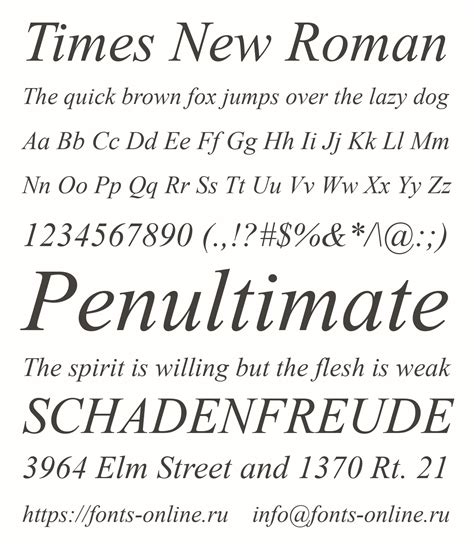
New Times Roman On Google Fonts: A Comprehensive Guide
New Times Roman on Google Fonts: A Comprehensive Guide
Hey everyone! Ever wondered if you can use New Times Roman font on your websites or projects, especially when you’re using Google Fonts ? Well, you’re in for a little bit of a surprise! Let’s dive deep into this. We’ll explore the availability, the closest alternatives, and how you can still achieve that classic, elegant look in your designs. It’s about finding the right font for the job, understanding the options, and making your text look amazing. So, let’s get started, shall we?
Is New Times Roman Directly Available on Google Fonts?
Alright, let’s address the elephant in the room. Directly, no. New Times Roman is not available on Google Fonts . This is because New Times Roman is a proprietary font, traditionally licensed and not open-source, which is the nature of Google Fonts. Google Fonts primarily offers a vast library of open-source fonts that are free to use for personal and commercial projects. This policy ensures that the fonts available are legally compliant for widespread use and distribution without incurring licensing fees. It’s important to respect the licensing of fonts because each font has its own unique license, and understanding the terms of the license is crucial to avoid any legal issues. Now, Google Fonts is an awesome resource, but it’s not a complete collection of every font ever made. This is just a fact, and it doesn’t diminish the value of Google Fonts; it just means we need to find other ways to get that classic look.
The absence of New Times Roman on Google Fonts stems from the different licensing models involved. Proprietary fonts like New Times Roman are often subject to licensing agreements that restrict their distribution, while Google Fonts is designed for open-source and freely available fonts. Open-source fonts allow for greater flexibility in terms of usage, modification, and distribution, which aligns with the core principles of the Google Fonts project. However, the absence of New Times Roman doesn’t mean you can’t get a similar aesthetic. We’ll explore some fantastic alternatives that can help you achieve the same classic feel. It’s a matter of finding fonts that share the same characteristics and appeal. Remember, the goal is to make your text look great, and sometimes, the best solution is to use a similar but different font.
Now, don’t worry, there are plenty of options out there. Many fonts are inspired by New Times Roman , sharing similar characteristics like serifs, proportions, and readability. These alternatives can be just as effective in conveying the look you desire. We’ll get into those alternatives in detail soon. And, the best part? They’re available on Google Fonts, which makes them super easy to integrate into your projects. So, while you can’t get the exact font, you can get very, very close and still keep your project looking professional and stylish. It’s all about making informed choices and being open to exploring different options to find the perfect match for your needs.
Finding Similar Fonts on Google Fonts
Okay, so New Times Roman isn’t on Google Fonts . But don’t you worry! There are some excellent alternatives on Google Fonts that can give you a similar vibe. These fonts are designed with similar characteristics, like serifs, x-height, and overall structure. Let’s look at some fantastic options. These fonts are perfect for a wide range of uses, from body text to headlines, ensuring that your content looks professional and readable. By choosing these alternatives, you can maintain the aesthetic you desire while still leveraging the convenience and accessibility of Google Fonts. So, here are some of the best fonts you can use instead of New Times Roman . It’s all about finding the closest match and making it work for your design.
Roboto Slab
Roboto Slab is a great place to start. This font is a slab serif, meaning it has those little lines at the end of the letters, just like New Times Roman . This is a great choice if you’re looking for something that is very readable, and with a modern touch. It has a geometric design and is known for its legibility and versatility, making it suitable for both digital and print applications. It also comes in various weights, giving you flexibility in terms of style, allowing you to use it for both headlines and body text. The different weights and styles help create hierarchy and visual interest in your design. Being a slab serif, it offers a distinct look while maintaining readability across different sizes.
Roboto Slab is a popular choice for various design projects due to its clean and modern aesthetic. The font’s design ensures clarity and ease of reading, which is essential for any project. Whether you are designing a website, a document, or any other type of content, Roboto Slab provides a balanced and visually appealing look. Its versatility allows it to blend seamlessly into different design contexts. It is a fantastic alternative for those seeking a font that delivers both style and functionality.
PT Serif
Another awesome option is PT Serif . This font family is designed specifically for the needs of the Russian Federation. It’s got that classic serif look and is easy on the eyes, making it perfect for body text. PT Serif is a versatile and elegant font with a classic design. It offers excellent readability and a timeless appeal, making it suitable for a wide array of applications. The clear, graceful lines of this font make it a great choice for long passages of text, providing a comfortable reading experience. Its various weights and styles contribute to its flexibility, allowing it to be used for headlines, body text, and other design elements. PT Serif provides a sense of professionalism and sophistication to any design project. With its refined style, PT Serif is a dependable choice that can enhance the overall look and feel of your designs. It is a reliable option for those looking to replicate the classic style of New Times Roman .
This font family has a clear and legible design that makes it an excellent choice for body text, providing a comfortable reading experience. The various weights and styles available enhance its versatility, allowing you to create a well-structured design. It’s a great way to give your project a professional and readable look, perfect for long-form content. Using PT Serif can give your project a refined and sophisticated touch.
Optimization Tips for Font Usage